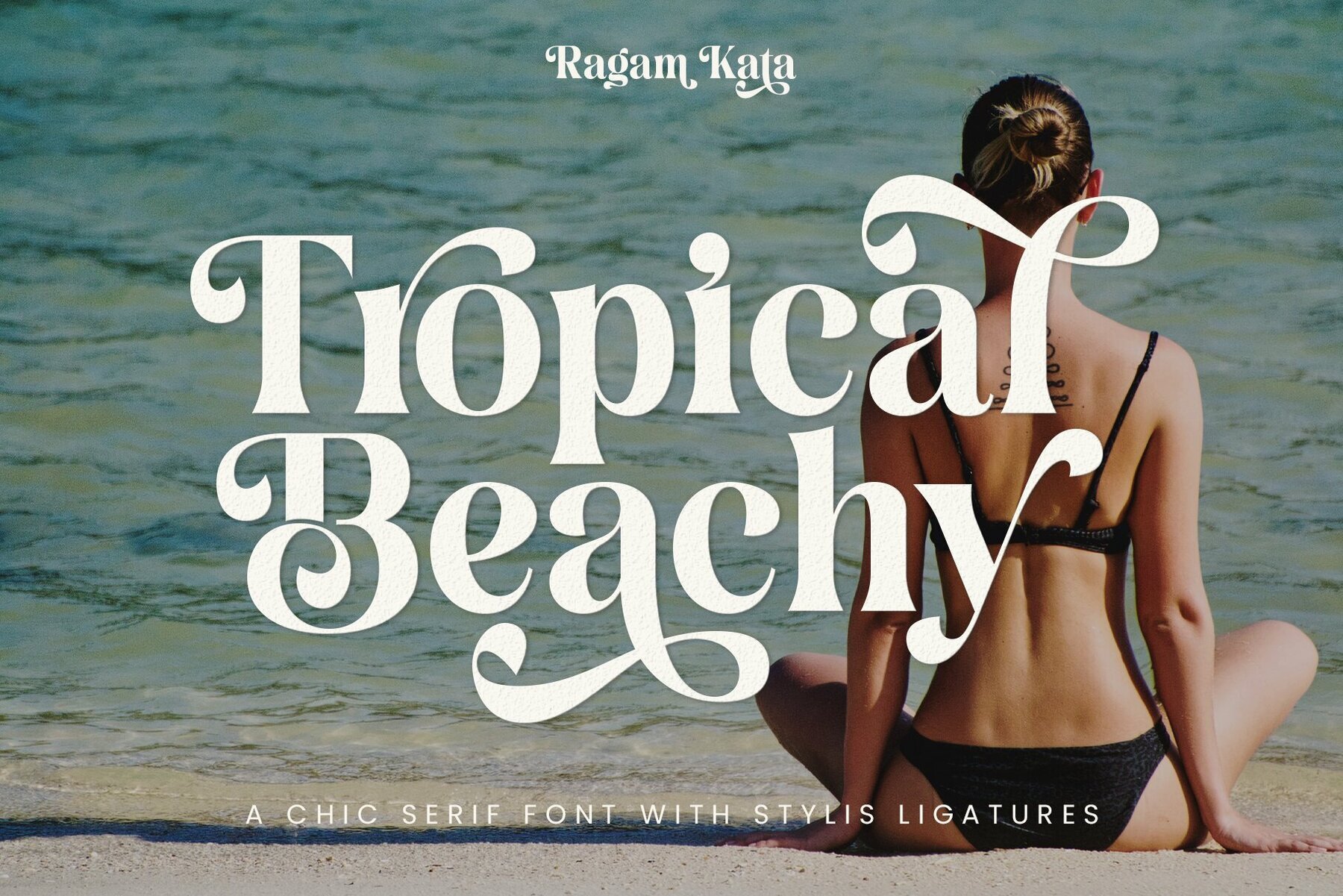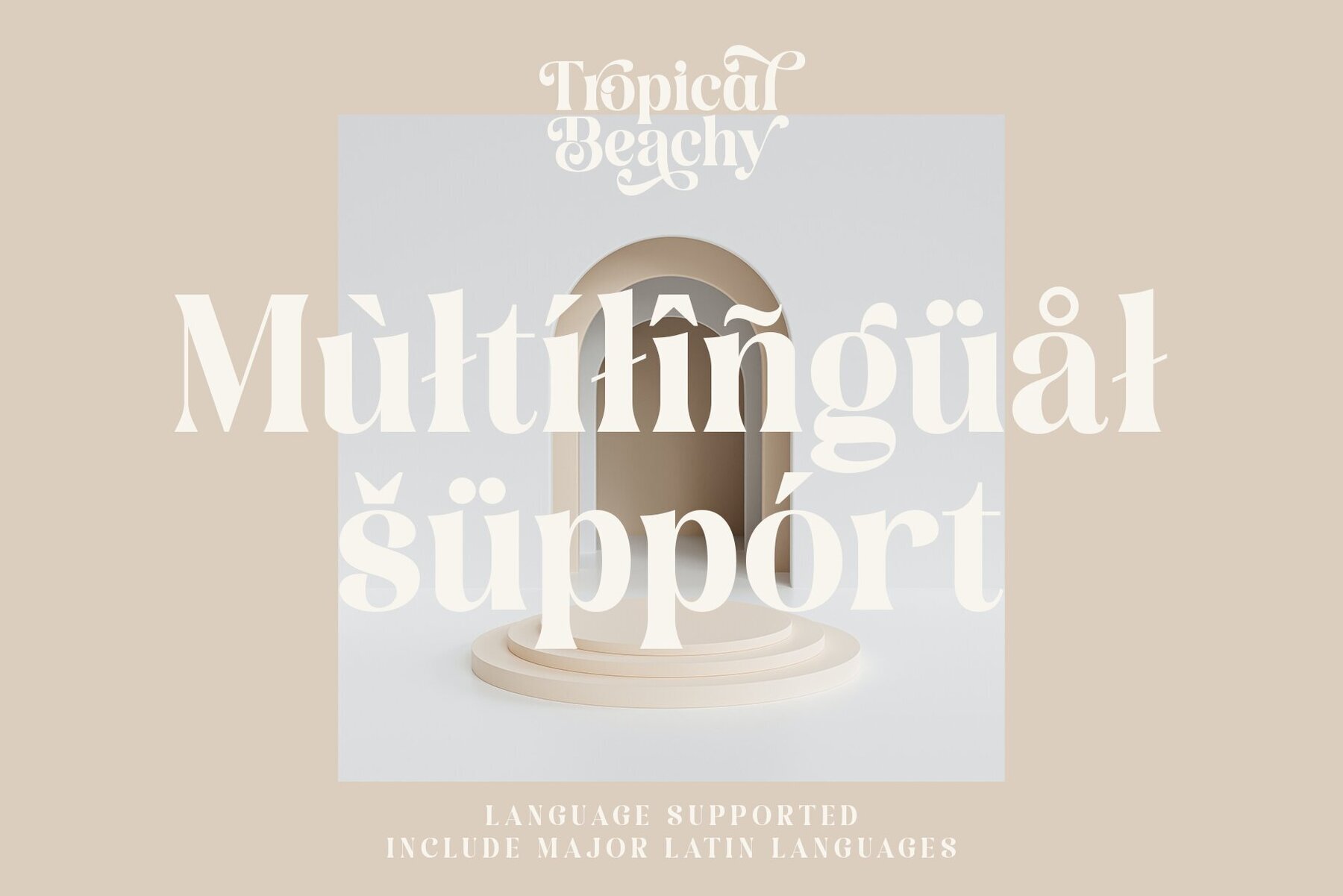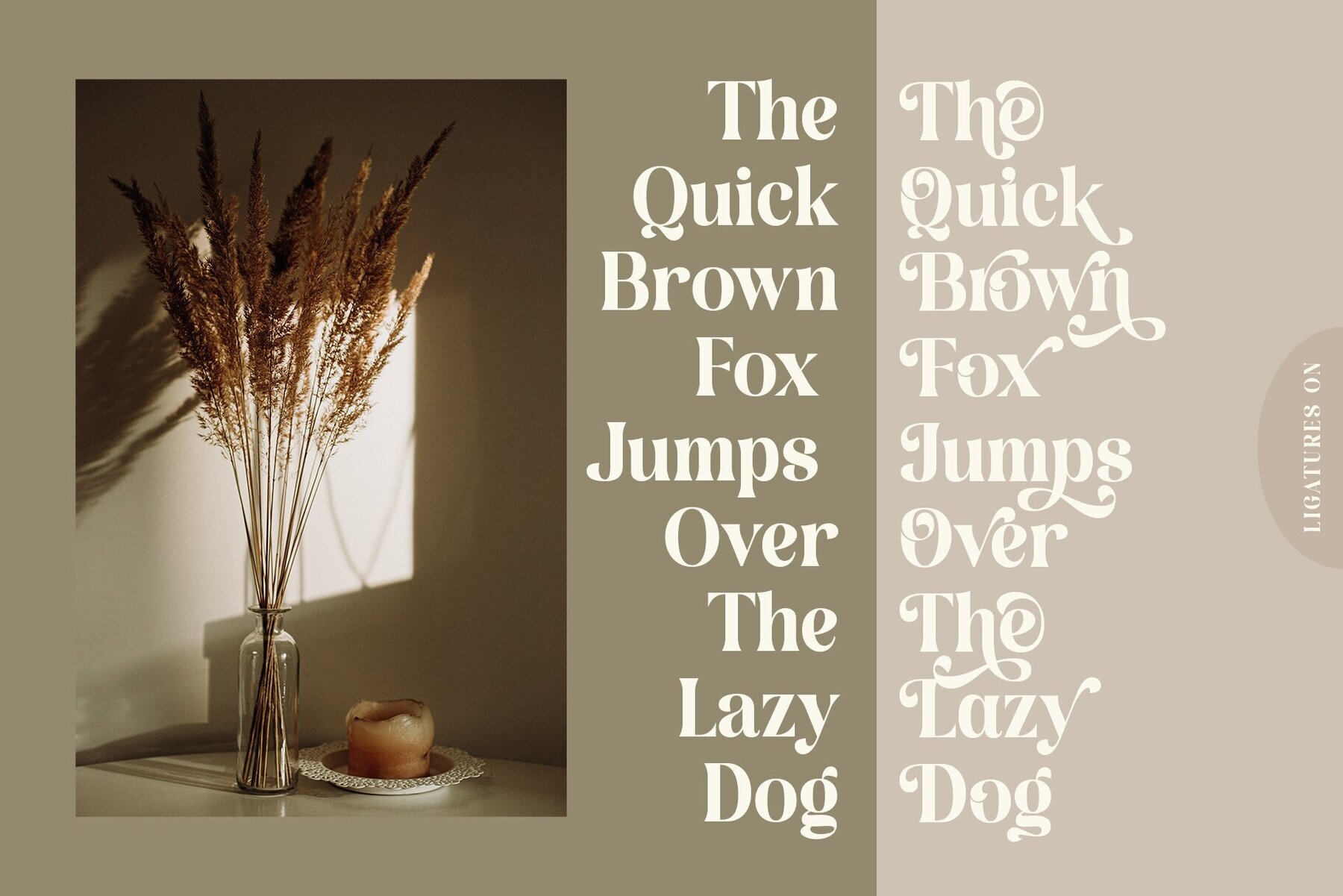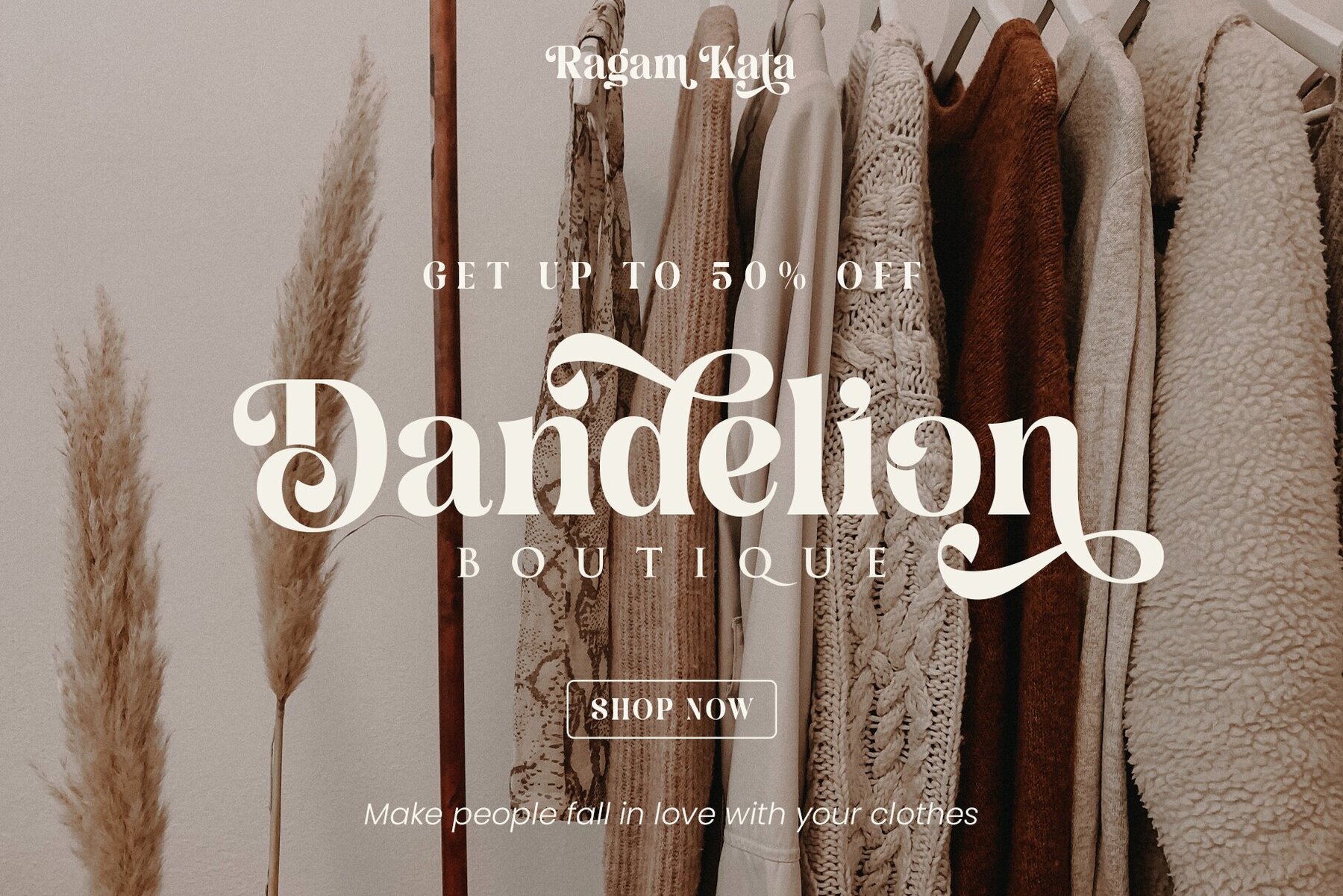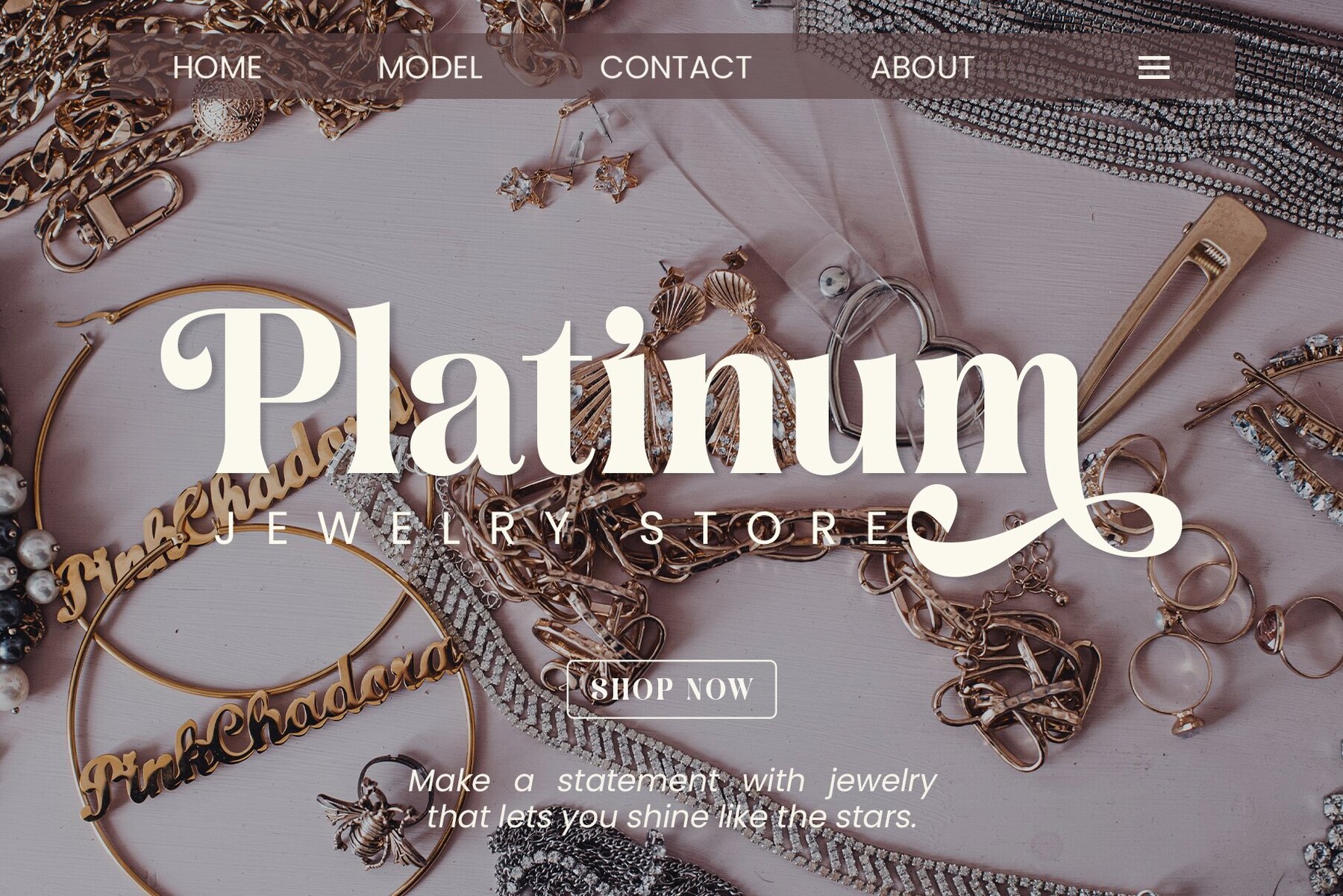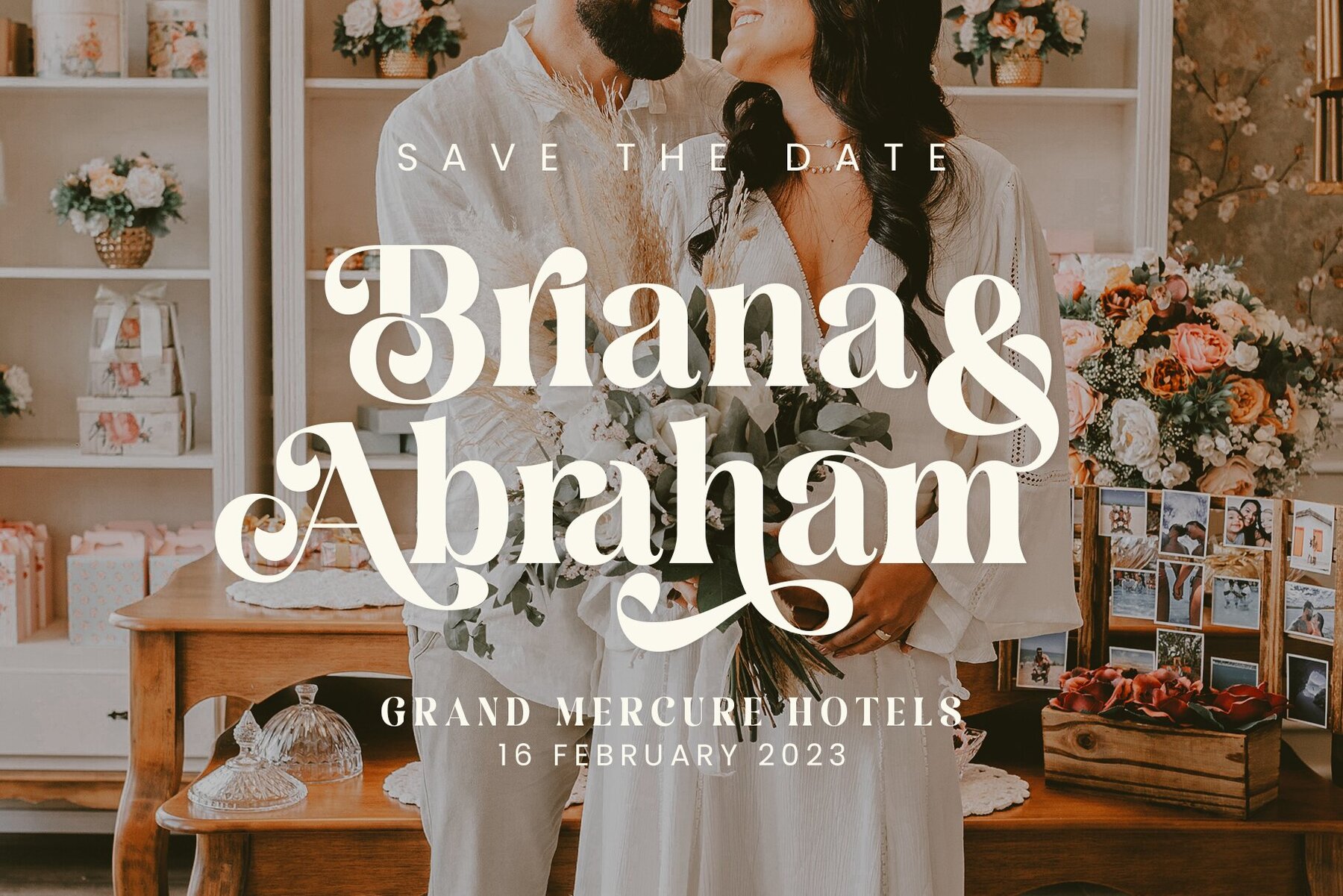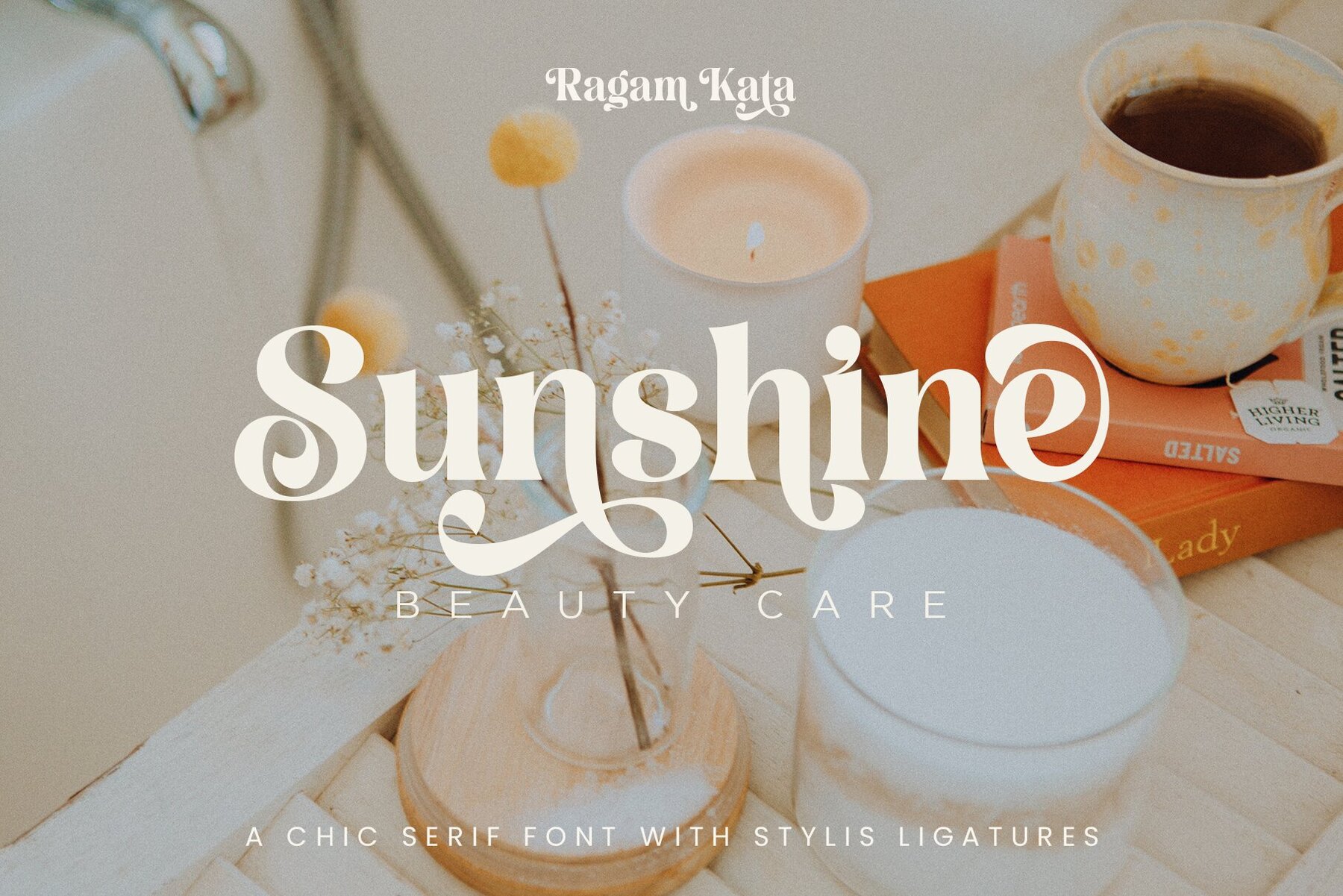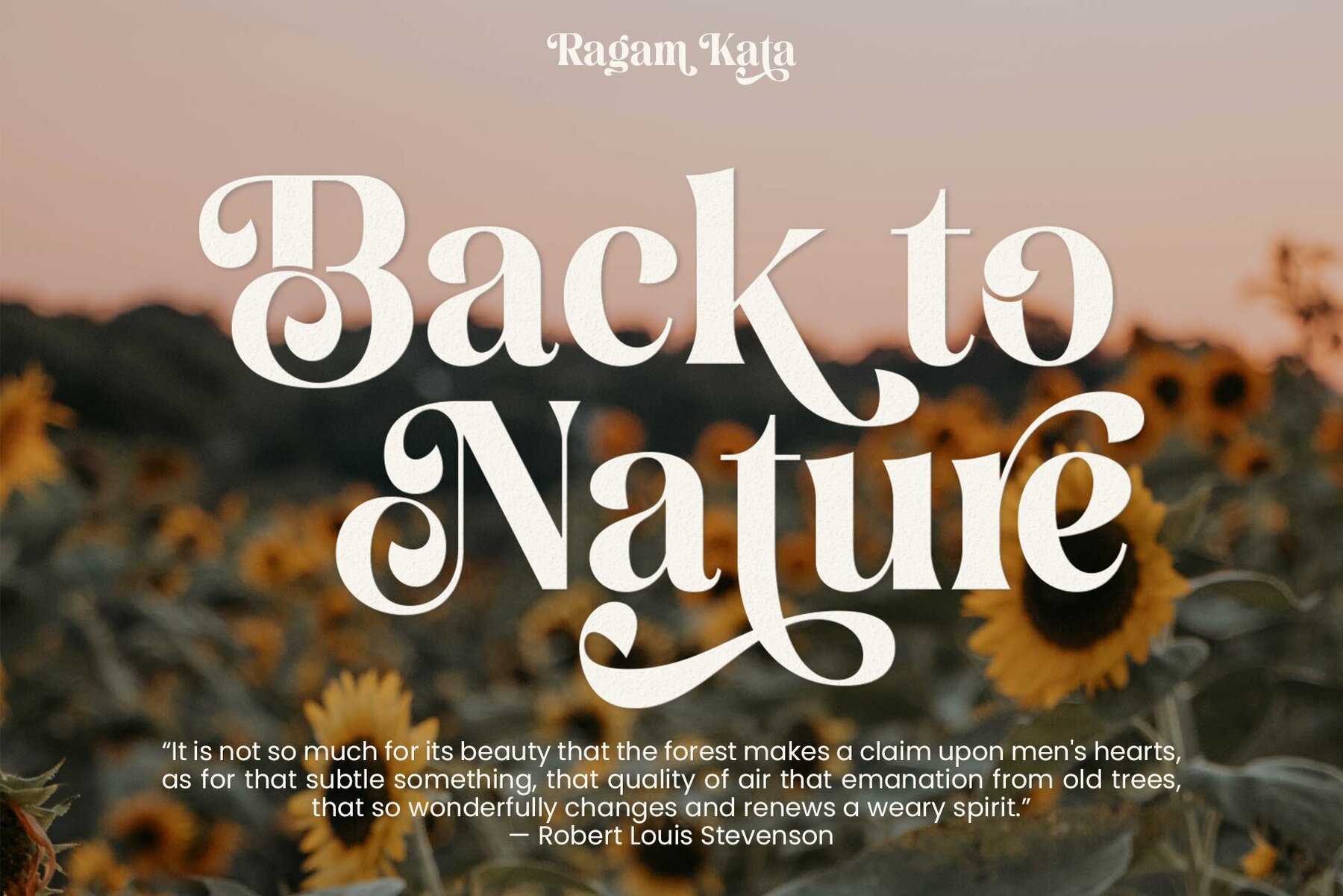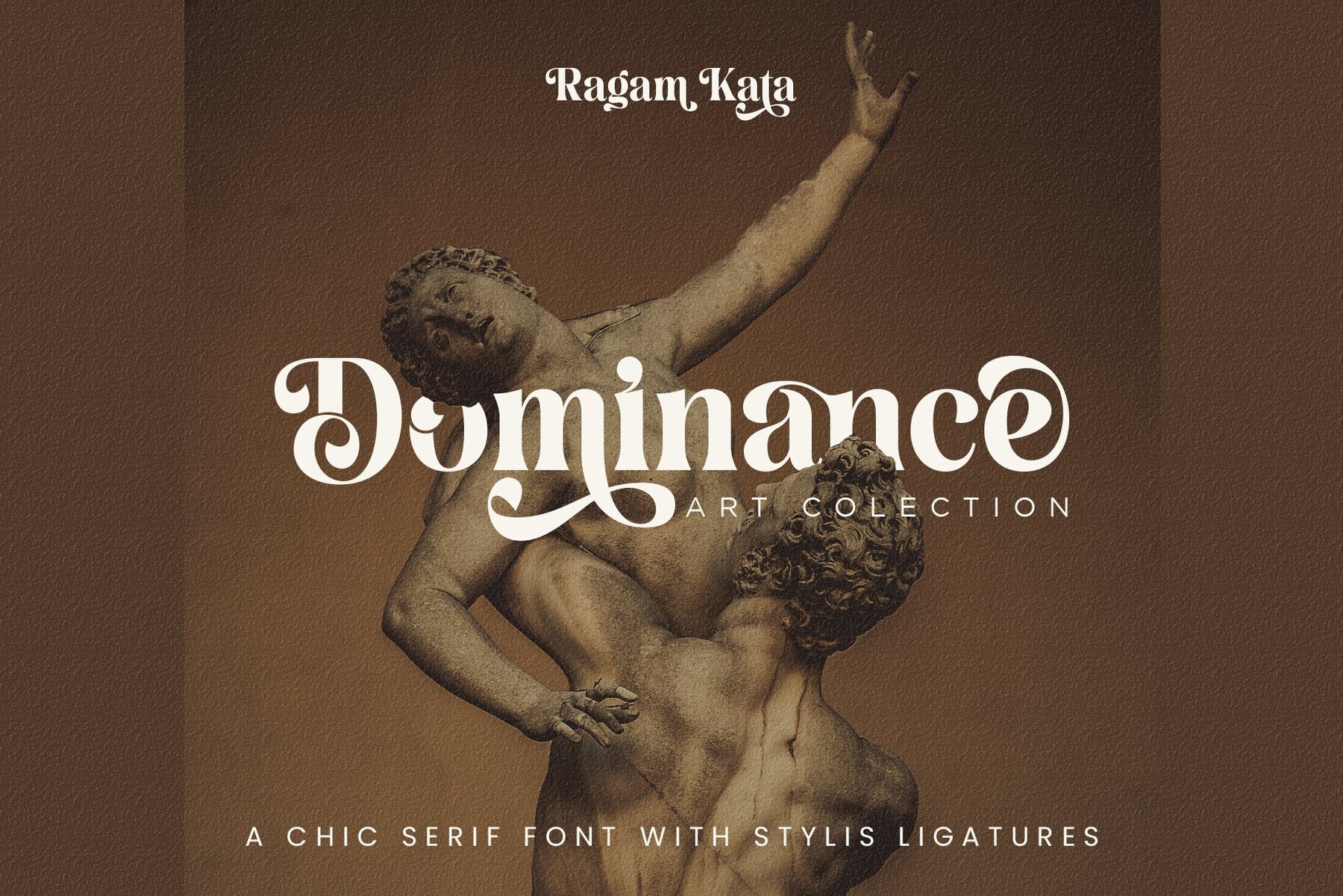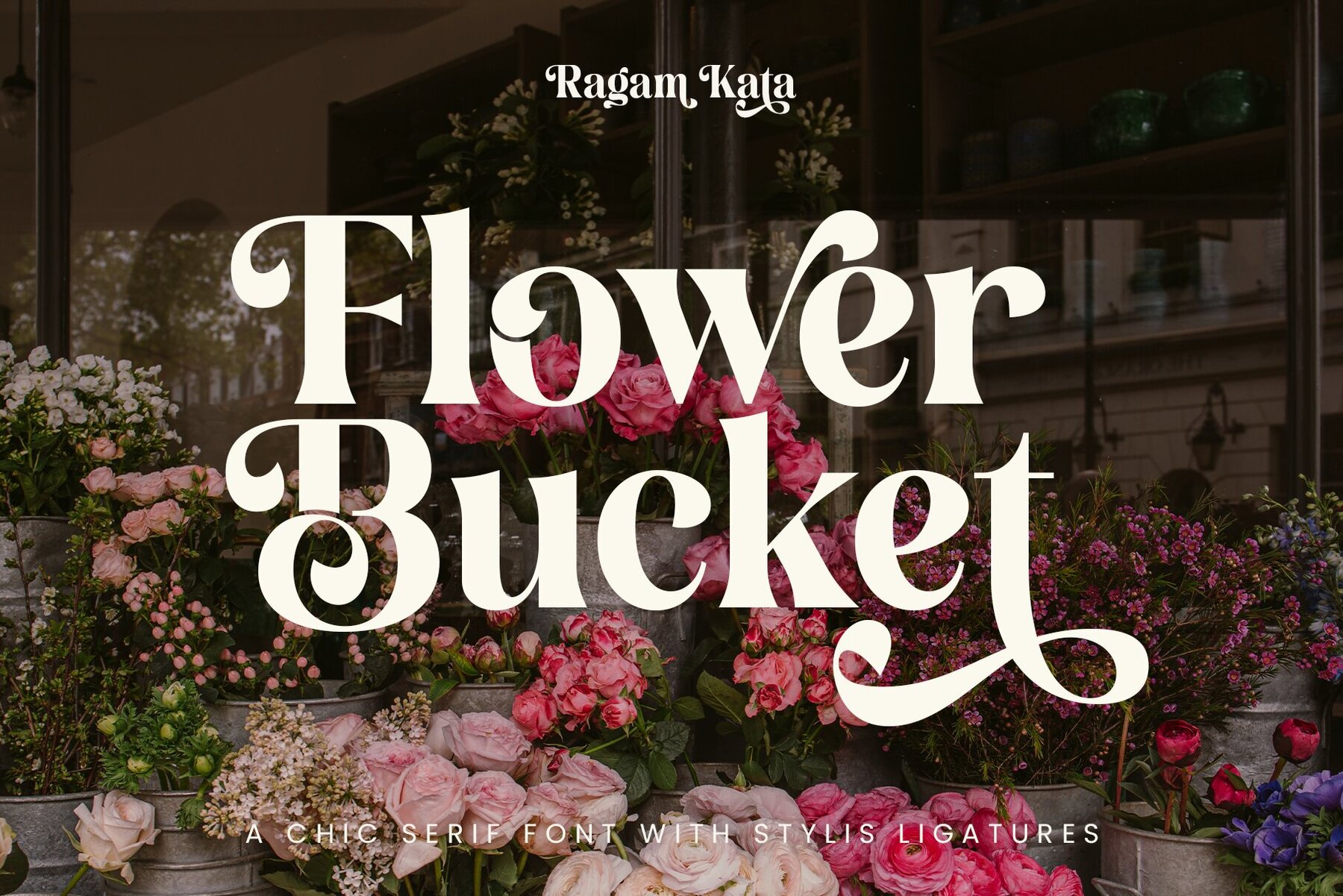
Tropical Beachy Font
Tropical Beachy is a classic retro-themed serif font that captures the essence of tropical and exotic beach vibes. Featuring stylish ligatures, this font adds a unique and eye-catching element to your design projects. Equipped with a variety of stylish ligatures, Tropical Beachy infuses letters with a creative and modern touch. These ligatures allow for the creation of unique and interesting letter combinations, making the font ideal for logo designs, brand identities, and other projects that seek to be distinctive and exclusive.Tropical Beachy: Retro Serif with an Exotic Flair